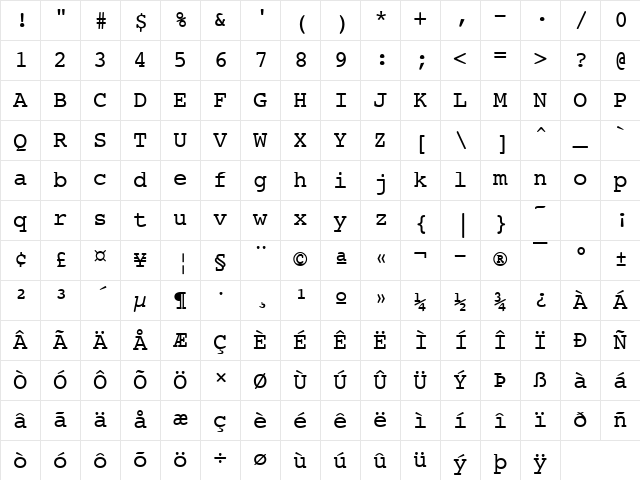
Journal Regular
Design Context for Journal
Journal is a composed and adaptable typeface that performs quietly and consistently across a wide range of design contexts.